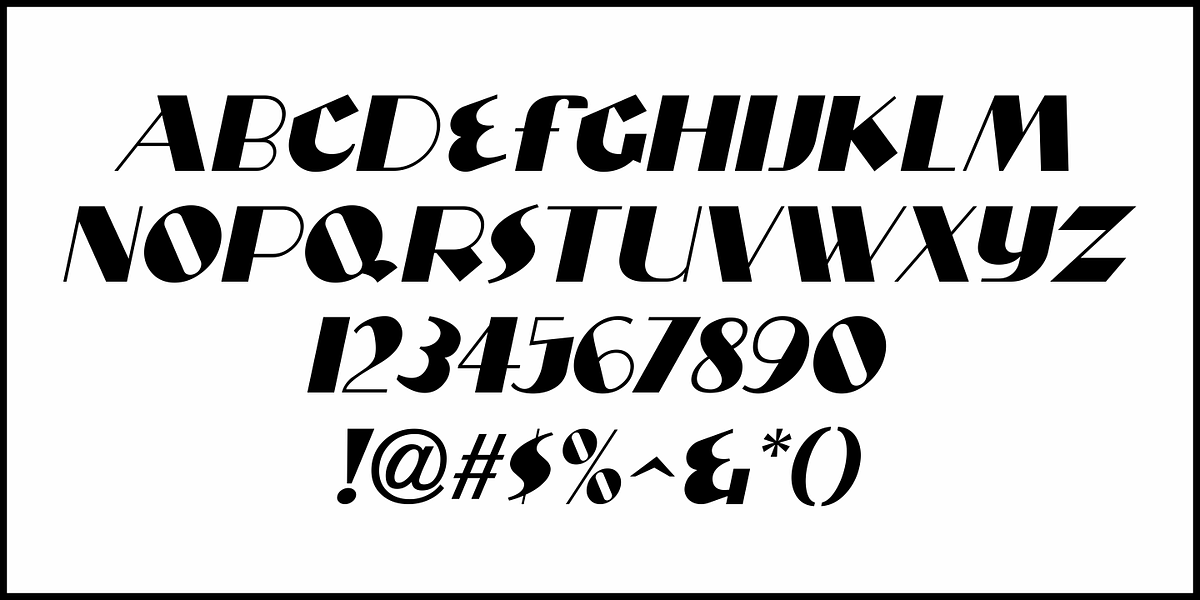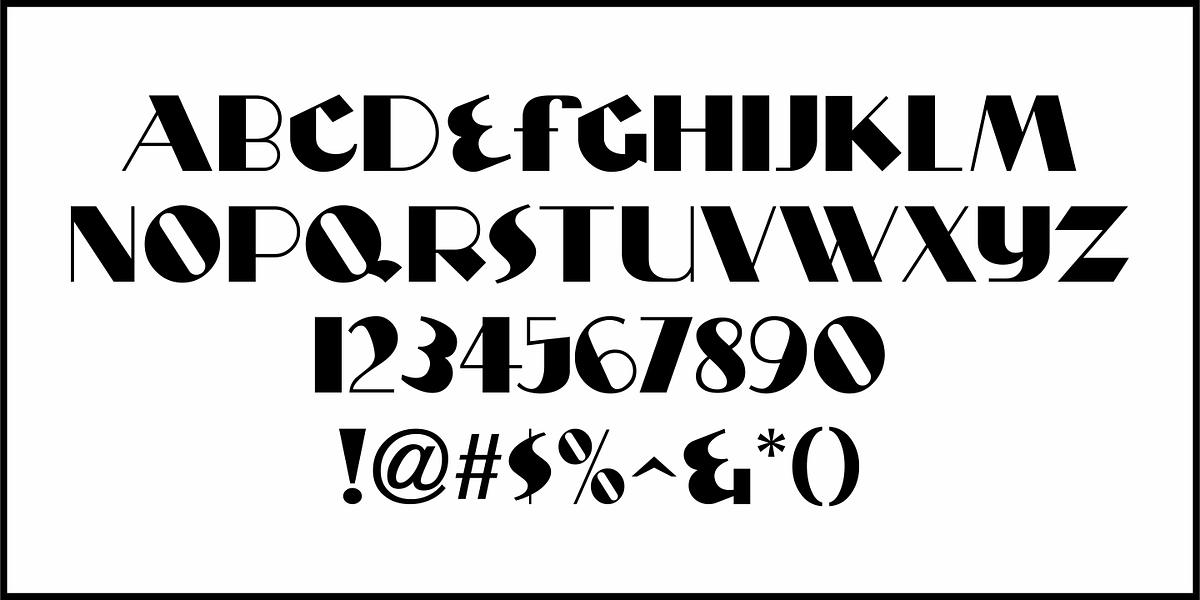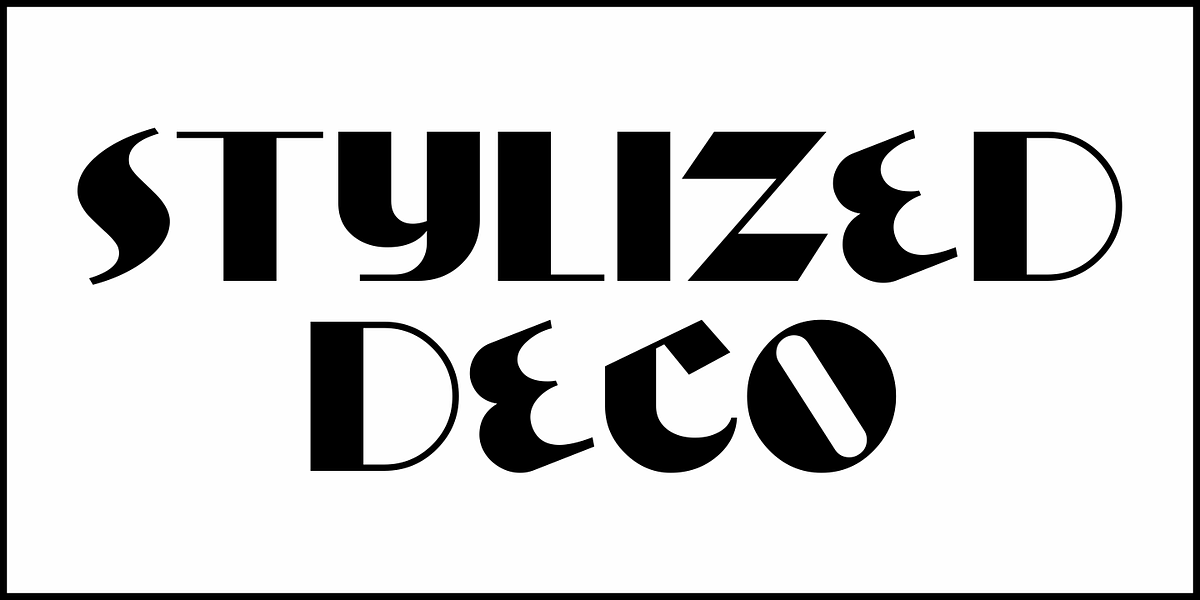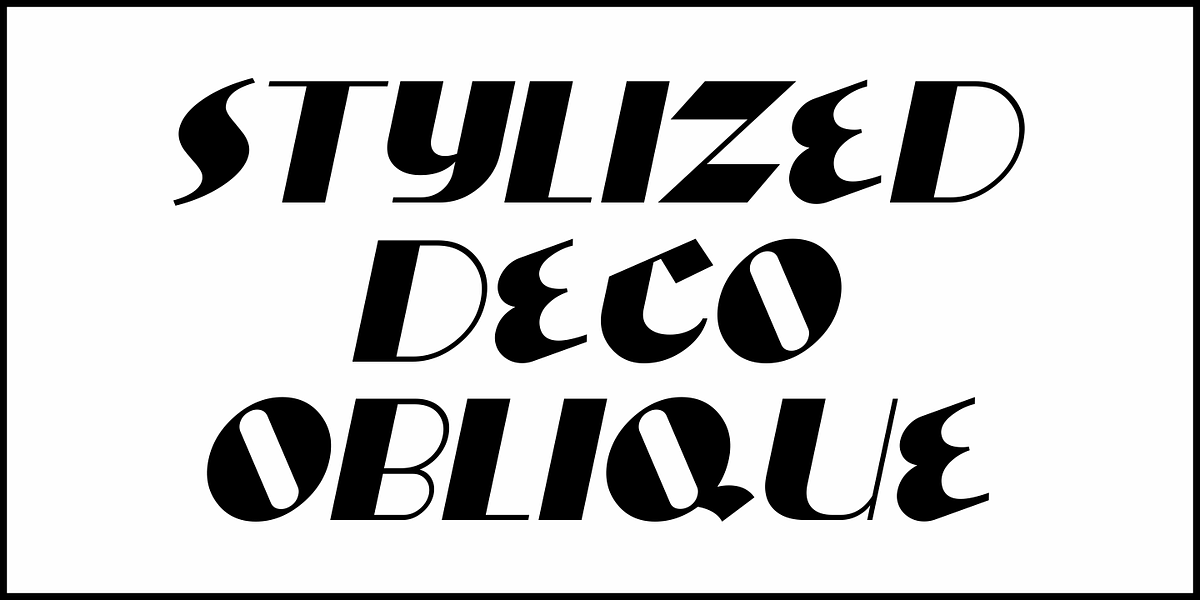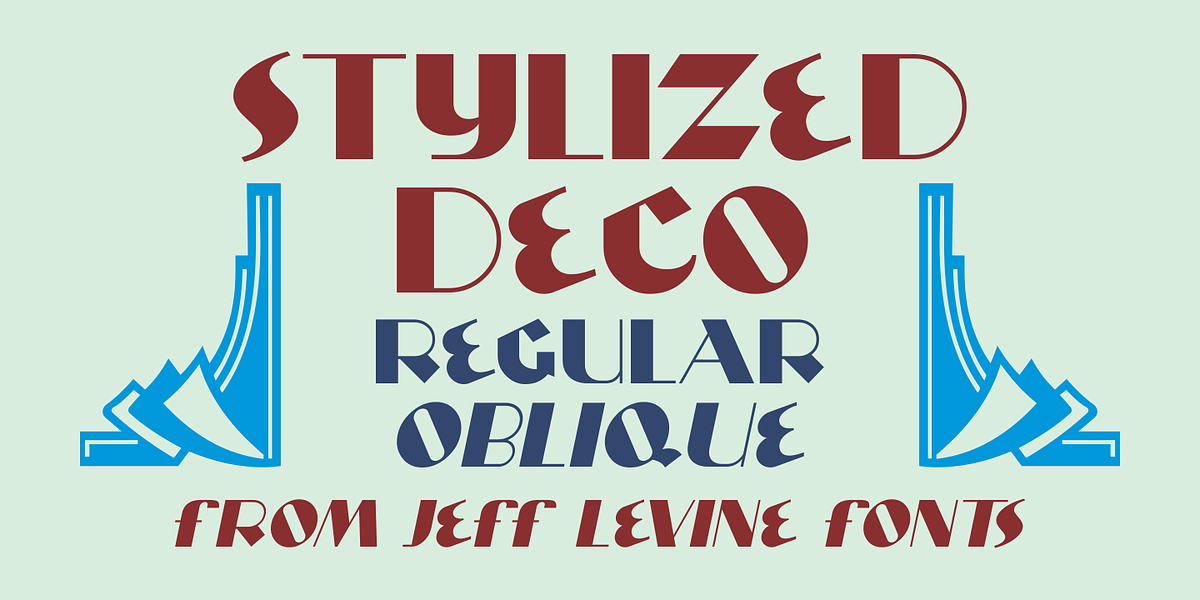
Stylized Deco JNL
In their book "Lettering of Today" by W. Ben and Ed C. Hunt, an Art Deco "thick and thin" alphabet with some stylized characters (which leaned a lot toward a calligraphic style) stood out from the rest.
This is now available as Stylized Deco JNL, in both regular and oblique versions.